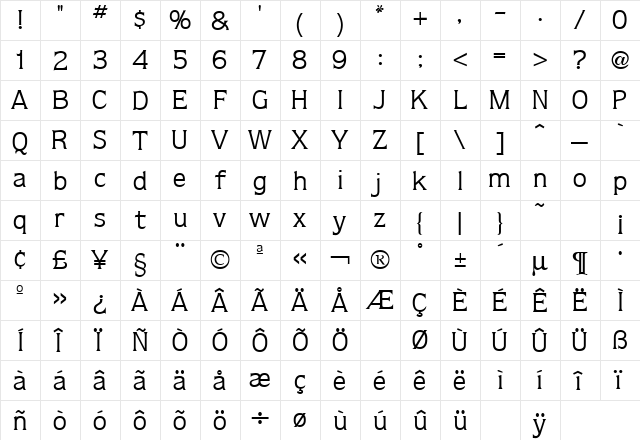
Quorum Regular Font Preview
Quorum Regular
Design Context for Quorum Typeface
Quorum takes a measured approach to typography — its balanced proportions and neutral character make it a reliable workhorse for both digital and print work.